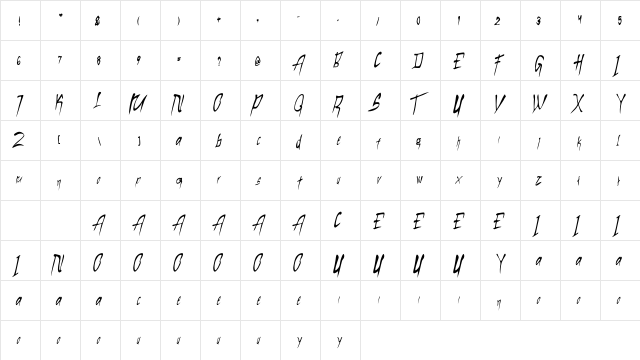
Bregudul Regular
| Foundry | hakim |
| Designer | Hakim |
Design Context for Bregudul Typeface
Bregudul is a composed and adaptable typeface that performs quietly and consistently across a wide range of design contexts.